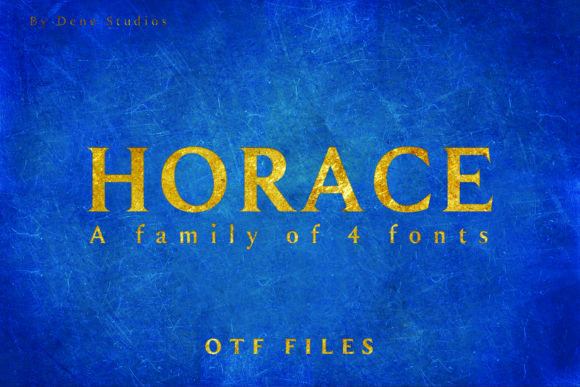
Horace Font
Unleash the sophistication of Horace, a captivating serif font that blends strength and grace. Its modern appeal breathes fresh life into your designs, inviting a touch of elegance and a hint of boldness.
Horace is a master of versatility, effortlessly adapting to a wide range of projects. Its unwavering structure and graceful curves create a timeless aesthetic that transcends trends. Whether you're crafting logos, headlines, or body text, Horace empowers your words with a distinct and unforgettable presence.
Indulge in the allure of Horace and discover the gateway to design excellence. Its meticulously crafted characters ignite inspiration, inviting you to elevate your creations to extraordinary heights. Embrace the allure of Horace and let its modern elegance captivate your audience.